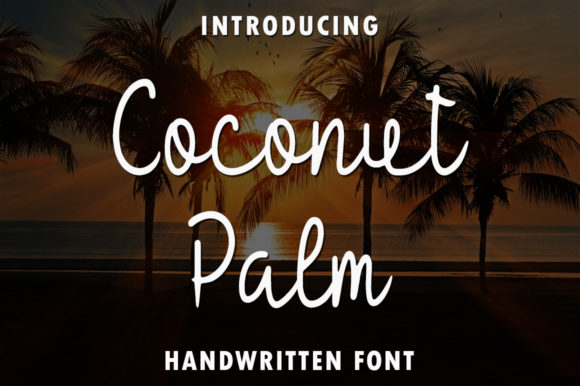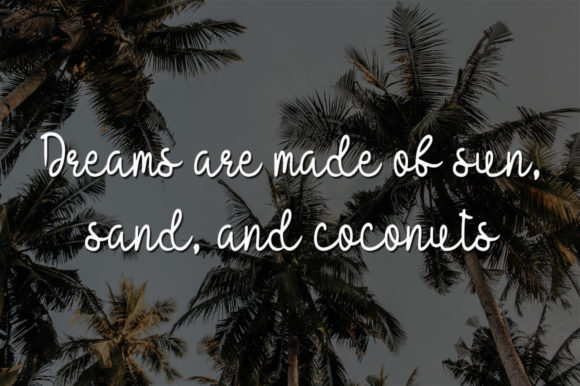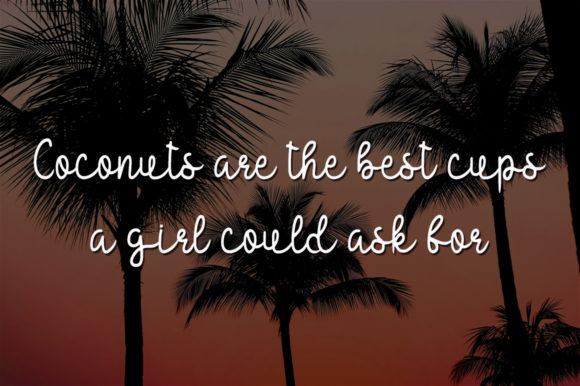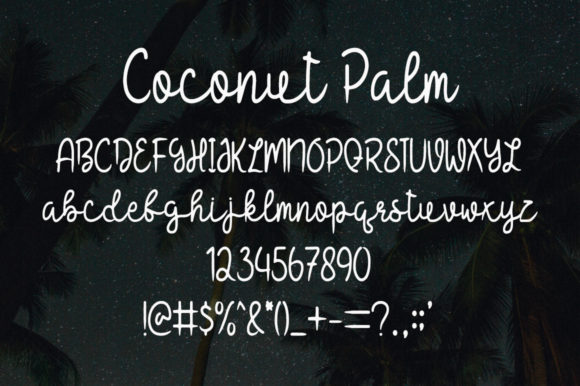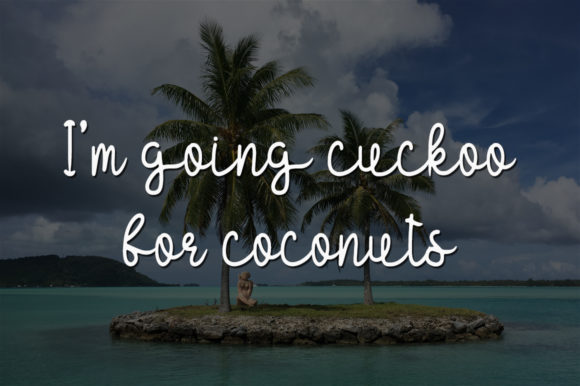
Coconut Palm Font
About Coconut Palm Font
Coconut Palm is a sweet and delicate handwritten font. Its distinct and well rounded letters make this font a masterpiece. Fall in love with its incredibly versatile style and use it to create spectacular designs!